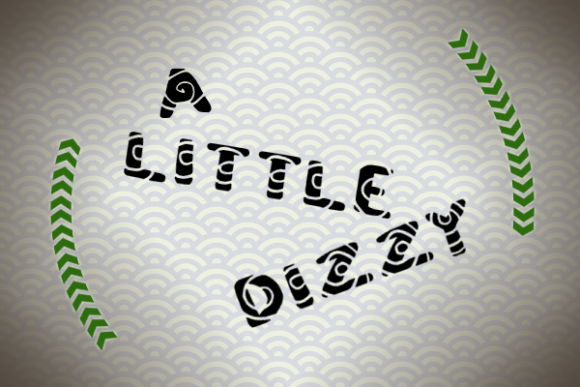
Unlock the secrets of the most captivating font collection - A Little Dizzy Font. Stroke your imagination with this display font family, designed to ignite visual vibrancy. Let your designs radiate individuality and set the stage for mesmerizing creations.
Unleash your creativity with this font that effortlessly fuses fashion and function. Its eccentric characters leap off the page, creating a playful atmosphere that demands attention. Watch your designs transform into striking masterpieces, captivating both digital and physical audiences alike.
With A Little Dizzy, your creative vision reigns supreme. Let this font ignite your passion, inspire unrivaled designs, and elevate your digital masterpieces to new heights. Say goodbye to the mundane and embrace the extraordinary with A Little Dizzy.
Immerse yourself in the nuances of A Little Dizzy, a font family meticulously crafted by the renowned Marlee Pagels. This digital artist's stroke of genius brings to life a font that amplifies the essence of visual communication.
A Little Dizzy elevates your creations, igniting a sense of wonder and intrigue. Embrace this font's unique ability to animate your words, whether in digital realms or printed masterpieces.
Discover a world where creativity knows no bounds. Let A Little Dizzy be your muse, propelling you to new heights of visual storytelling. Engage your audience with this font's mesmerizing charm and watch as your designs dance off the page.
Craft an experience that's impossible to ignore with A Little Dizzy Font. Leap into a realm of visual enchantment, where words and designs intertwine to form a captivating tapestry of emotions and ideas. Dare to stand out, dare to mesmerize, dare to be different. The world awaits your creations, brought to life by A Little Dizzy.